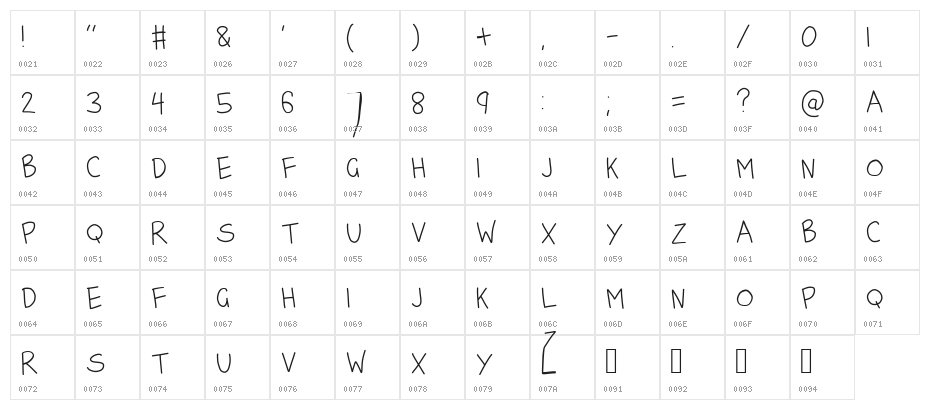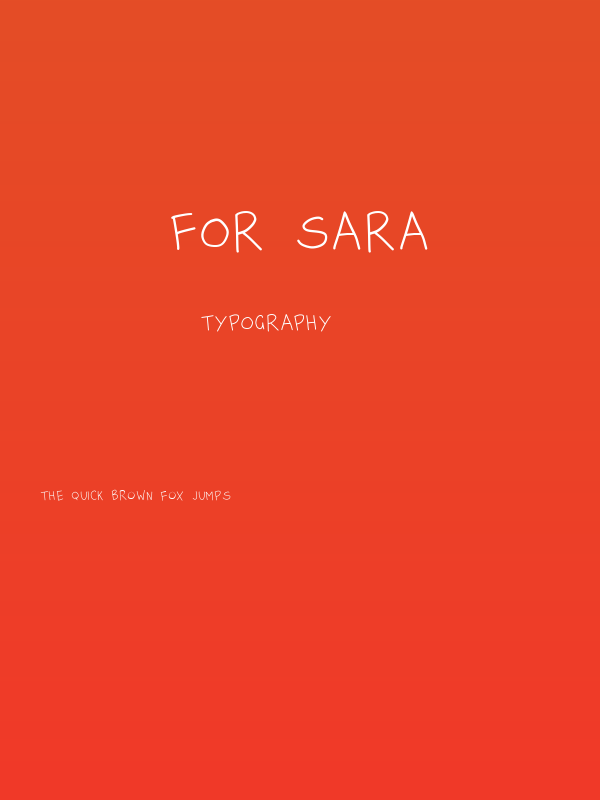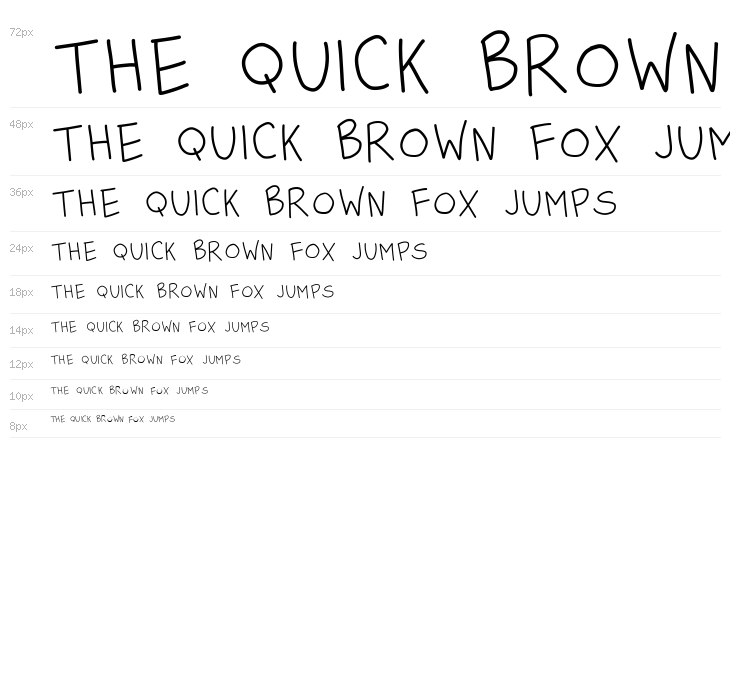
for sara Font
for sara Description
This playful and informal font features a handwritten style with a casual, friendly appearance. The characters are slightly irregular, giving it a personal and approachable feel. The strokes are consistent in width, contributing to a uniform look across all letters and numbers. The font includes both uppercase and lowercase letters, numerals, and a selection of special characters. Its simplicity and charm make it suitable for projects that require a touch of personality and warmth. The overall design is clean and legible, making it versatile for various applications.
| Use Case | Headlines, Informal text, Personal projects |
| Proposed Projects | Ideal for greeting cards, children's books, personal blogs, and informal branding. |